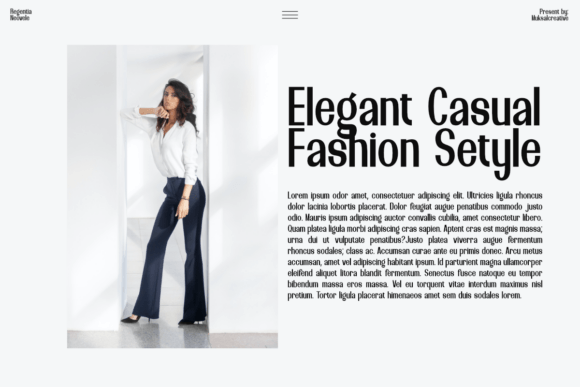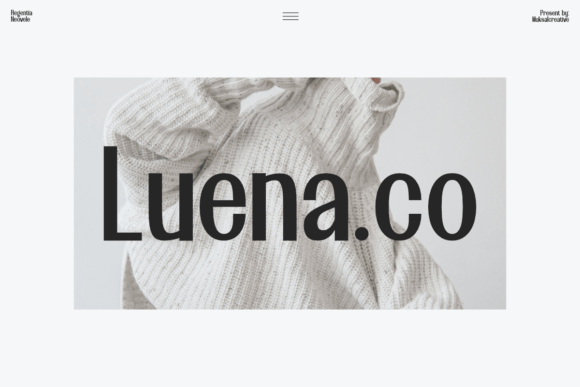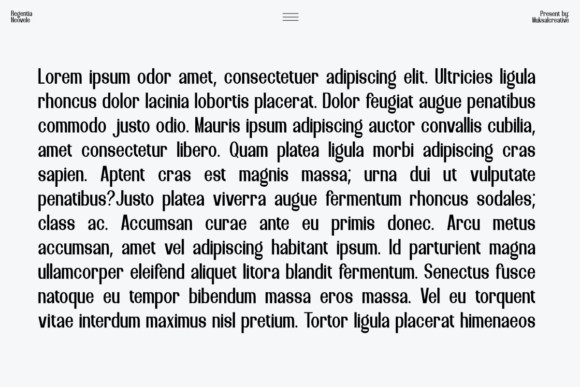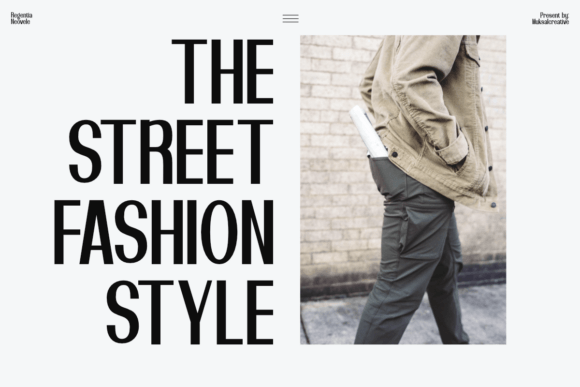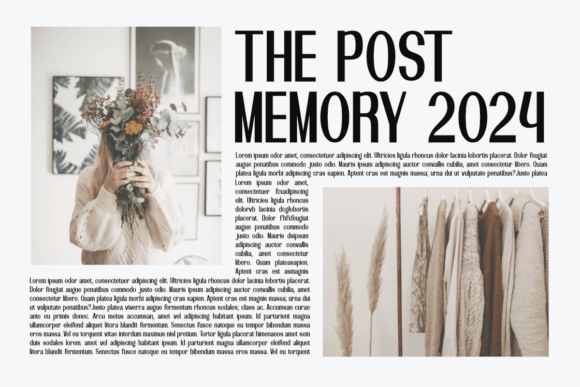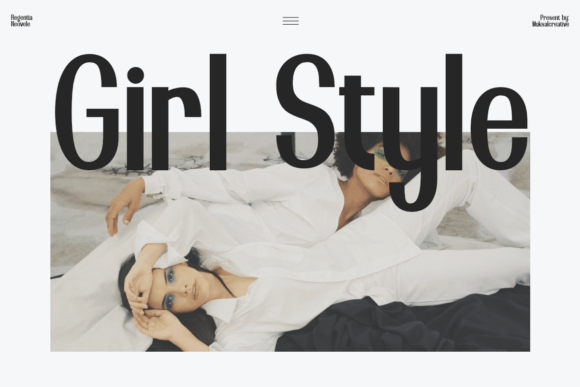
Introduction to Regentia Neovele Font
Have you ever stumbled upon a font that perfectly captures the essence of your creative vision? For designers, finding the right font can be a game-changer, elevating a project from good to exceptional. For me, that moment came when I discovered the Regentia Neovele Font – a stunning blend of classic elegance and modern sophistication.
This high-quality font has become an essential design resource for professionals and creatives alike. With its refined details and clean lines, Regentia Neovele Font exudes an air of luxury, making it perfect for premium branding, editorial design, and professional visual communication. Whether you’re working on a high-profile project or simply want to add a touch of excellence to your design, this font is sure to deliver.
Key Features of Regentia Neovele Font
- High-quality font designed for creative projects, suitable for various design applications.
- Unique, elegant design makes it perfect for use in branding, advertising, and editorial projects.
Honest Review: Regentia Neovele Font
I recently had the chance to work with the Regentia Neovele Font, and I’m excited to share my thoughts with you. As a designer, I’m always on the lookout for high-quality fonts that can elevate my creative projects. And let me tell you, this font delivers.
- ✨ Unique and elegant design: The Regentia Neovele Font has a distinct and sophisticated look that’s perfect for upscale branding and design projects.
- ✨ High-quality glyphs: The font’s glyphs are crisp and well-crafted, making it ideal for both print and digital applications.
- ⚠️ Limited font styles: While the font itself is well-designed, it’s limited to a single style, which may not be suitable for all design projects.
- ⚠️ Not ideal for small text: Due to its elegant design, the font may not be the best choice for small text or body copy.
Overall, I’m impressed with the Regentia Neovele Font. It’s a valuable design resource that’s perfect for high-end branding and design projects. While it may have some limitations, I think it’s well worth checking out for any designer looking to add some sophistication to their work.
The Regentia Neovele Font is ideal for use in branding, packaging, and advertising materials. It’s also a great choice for creating digital products, such as e-books and online courses.